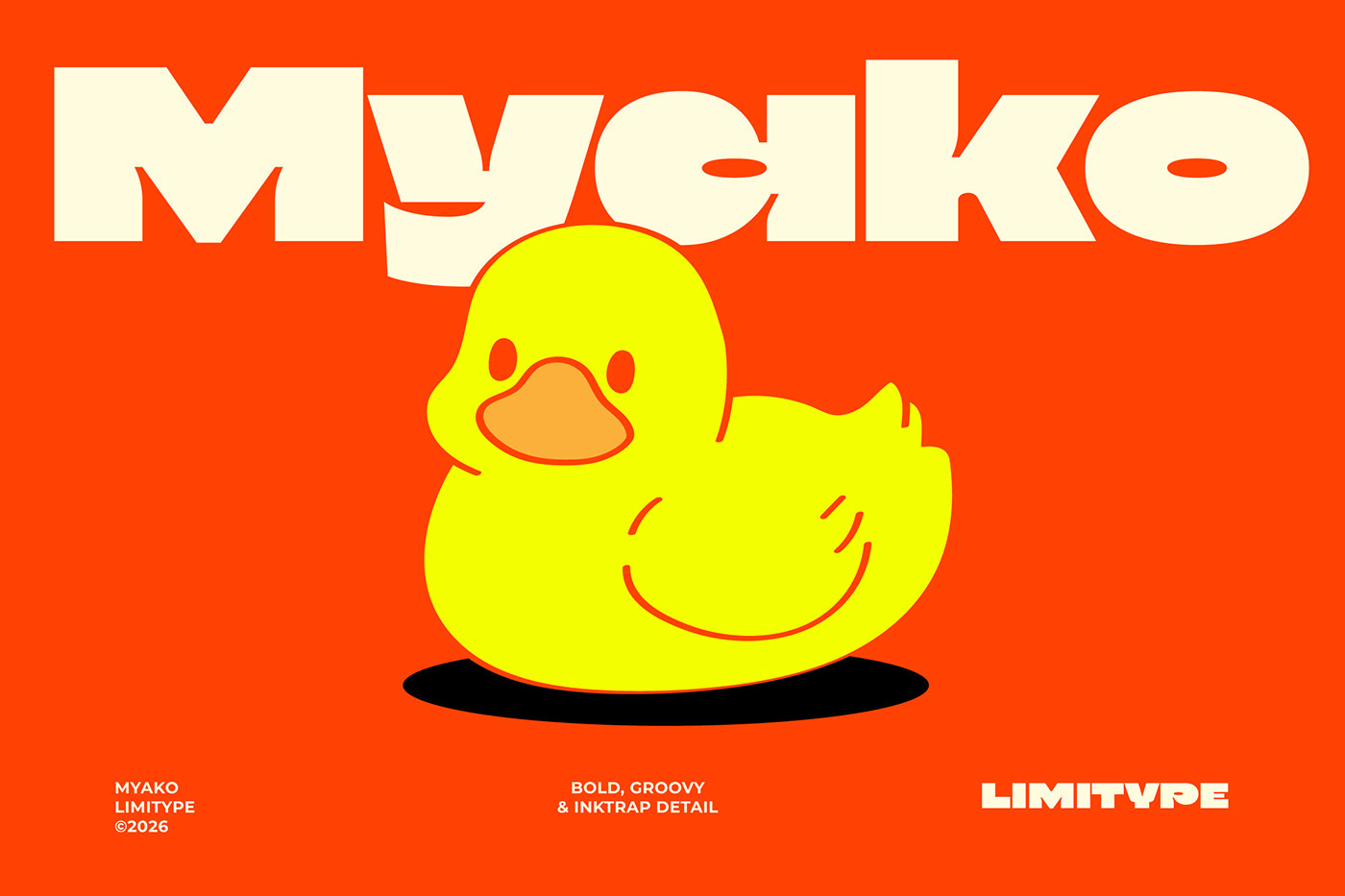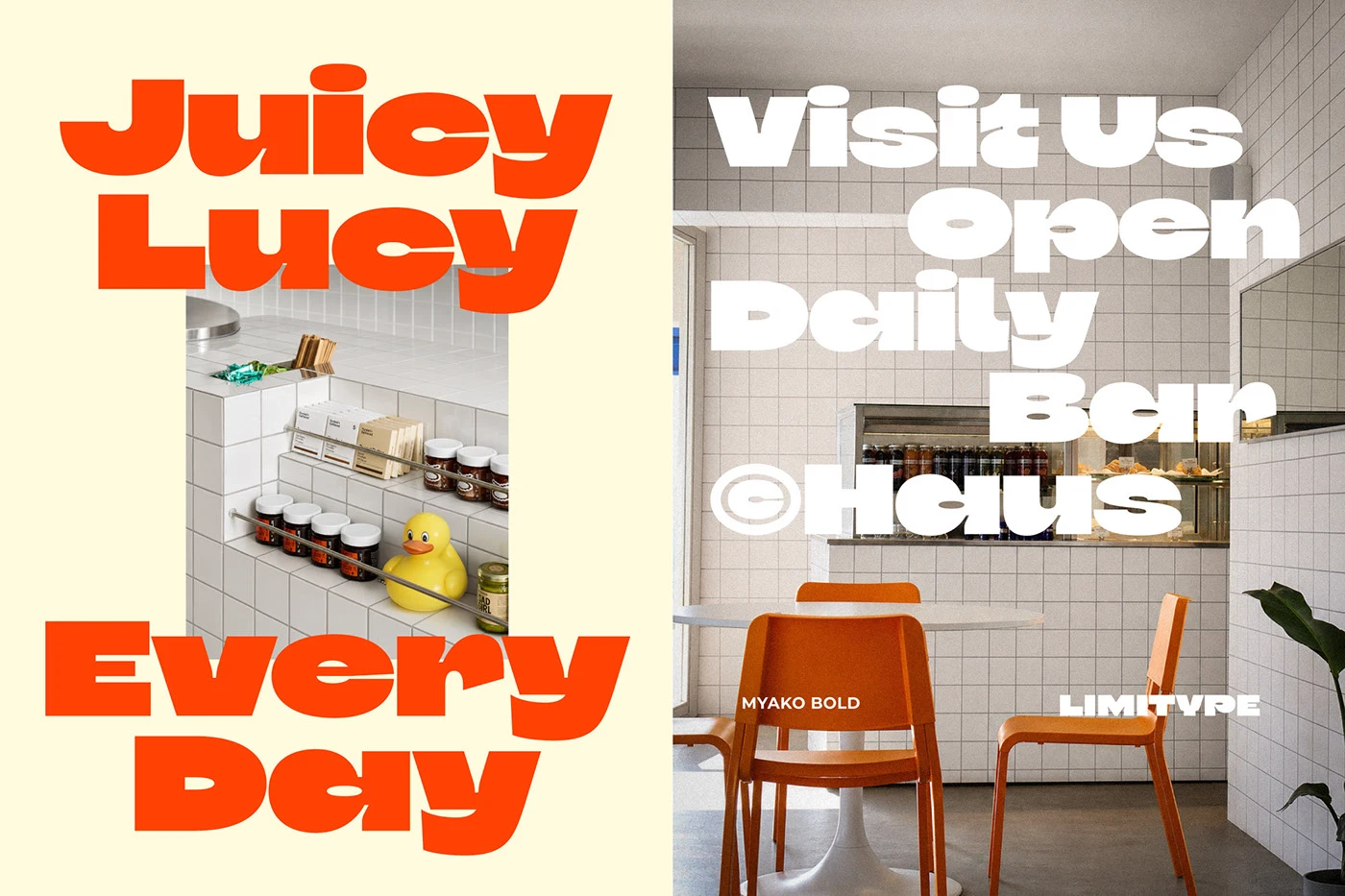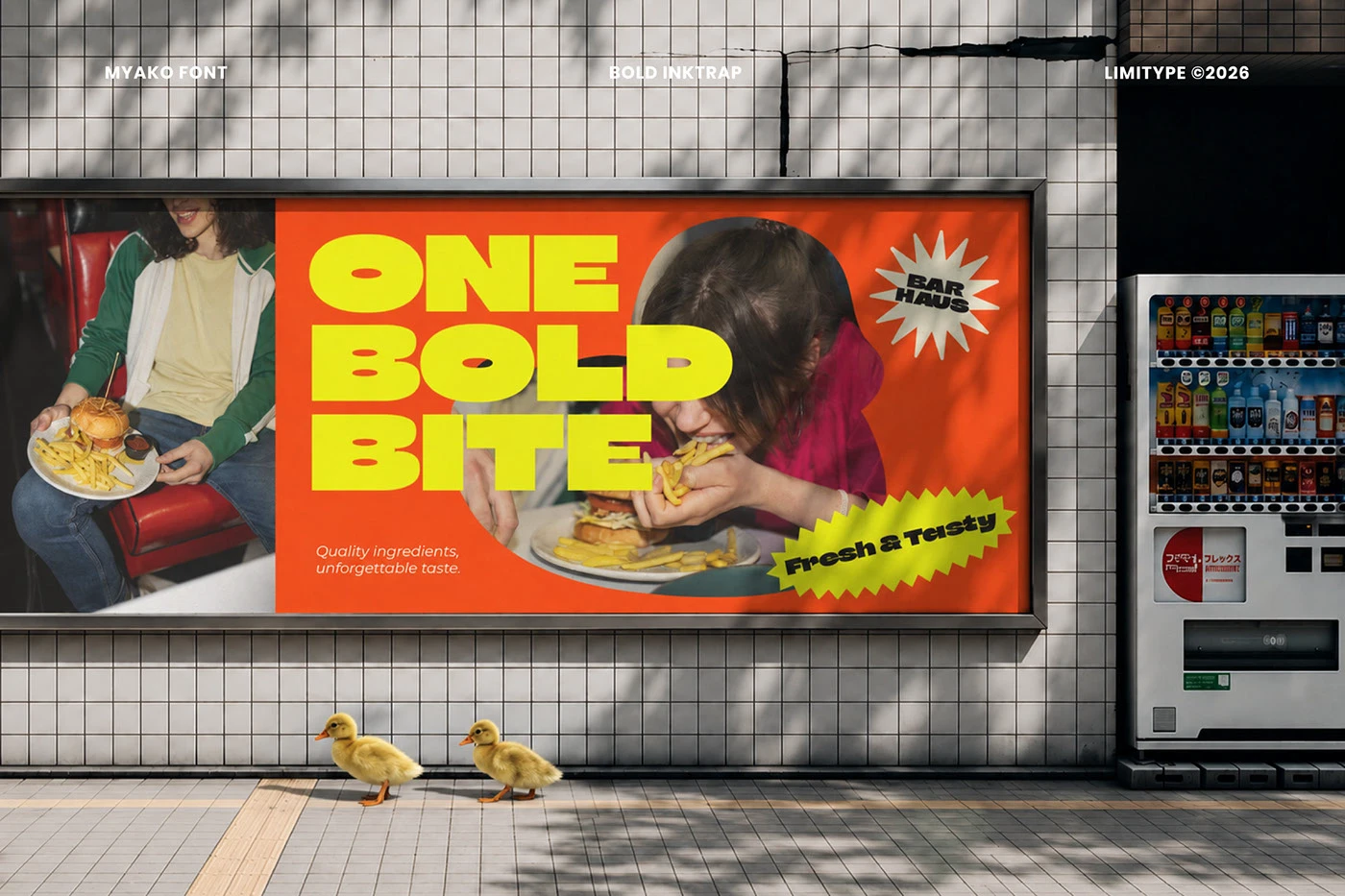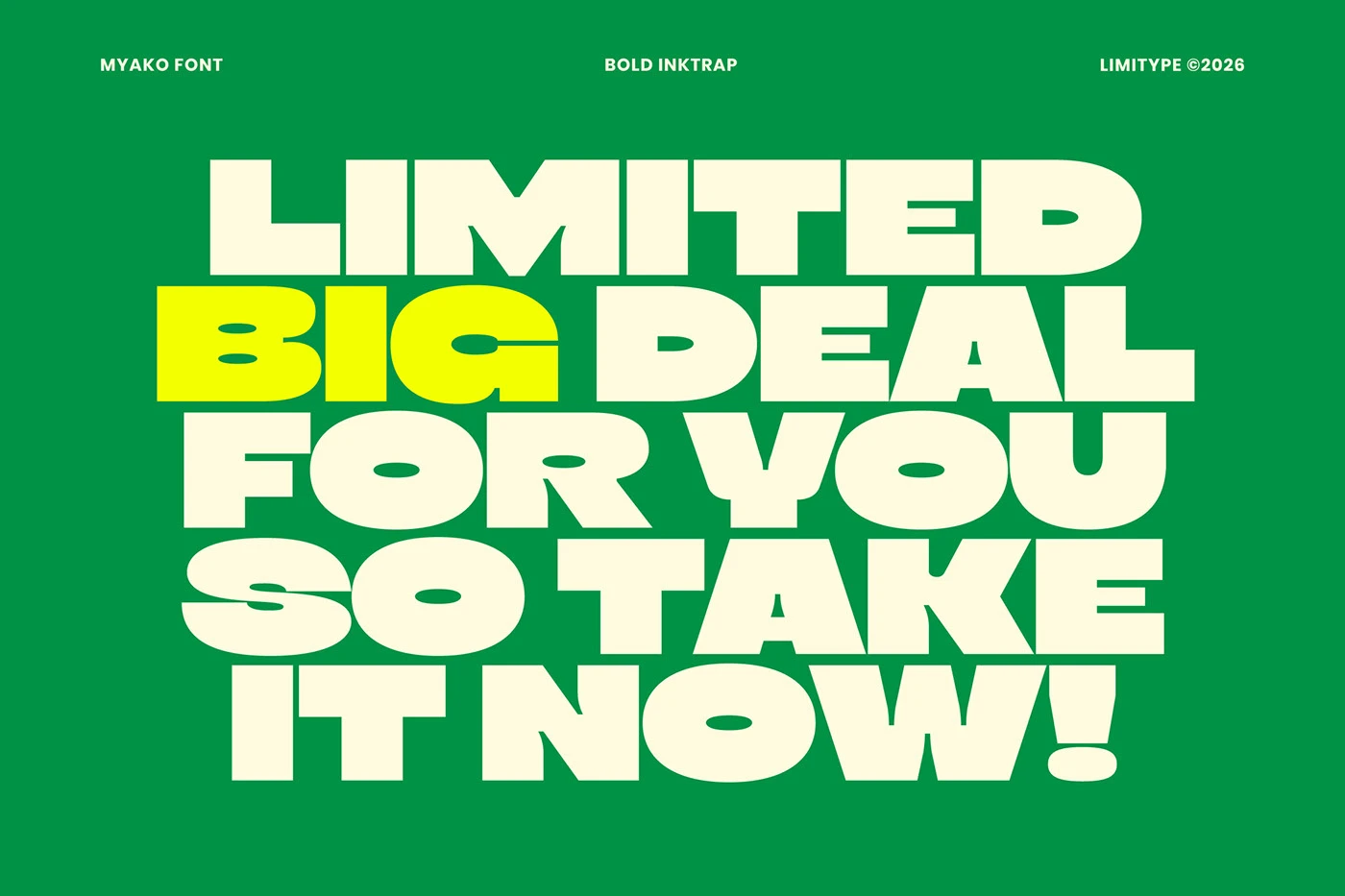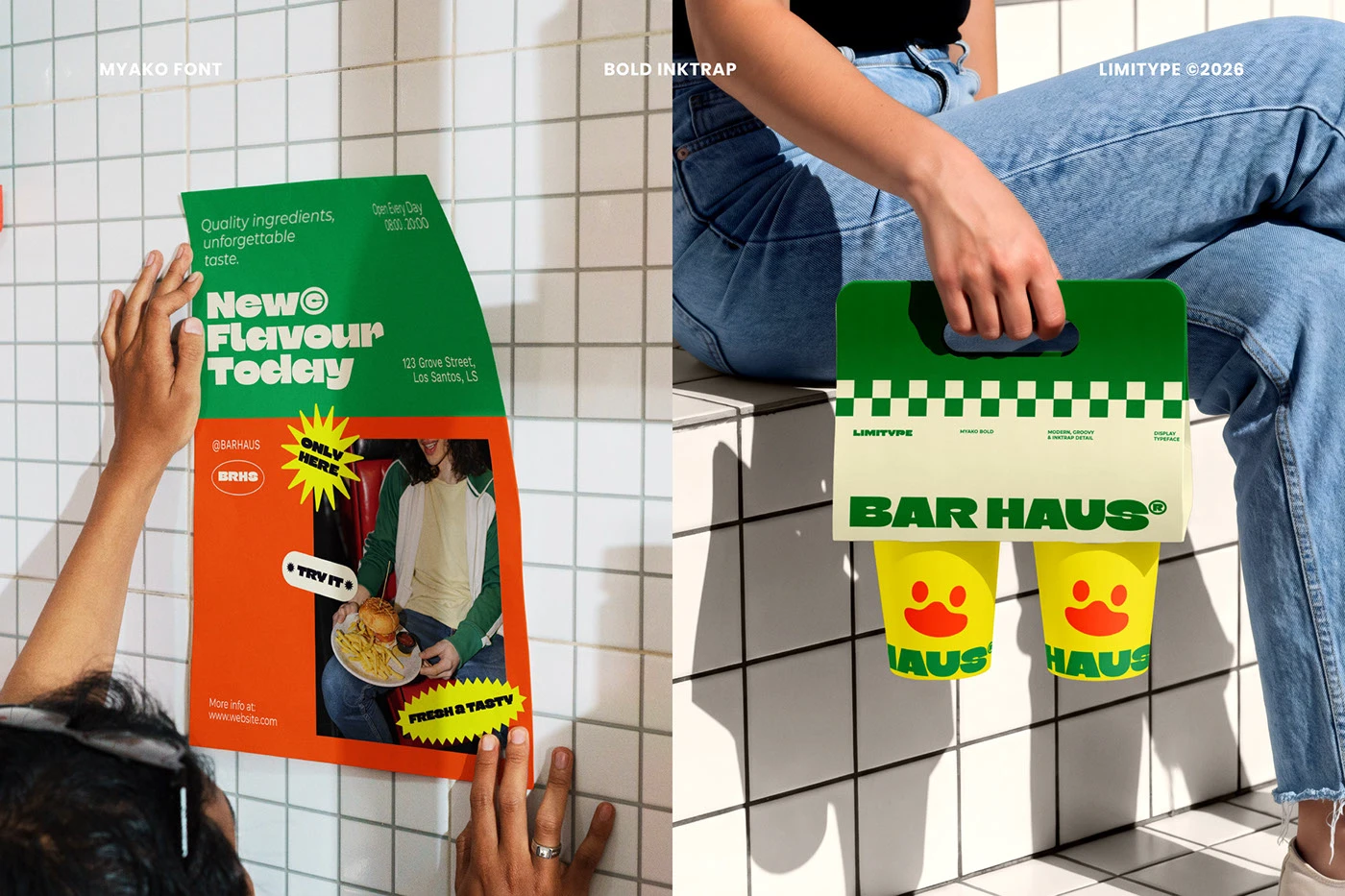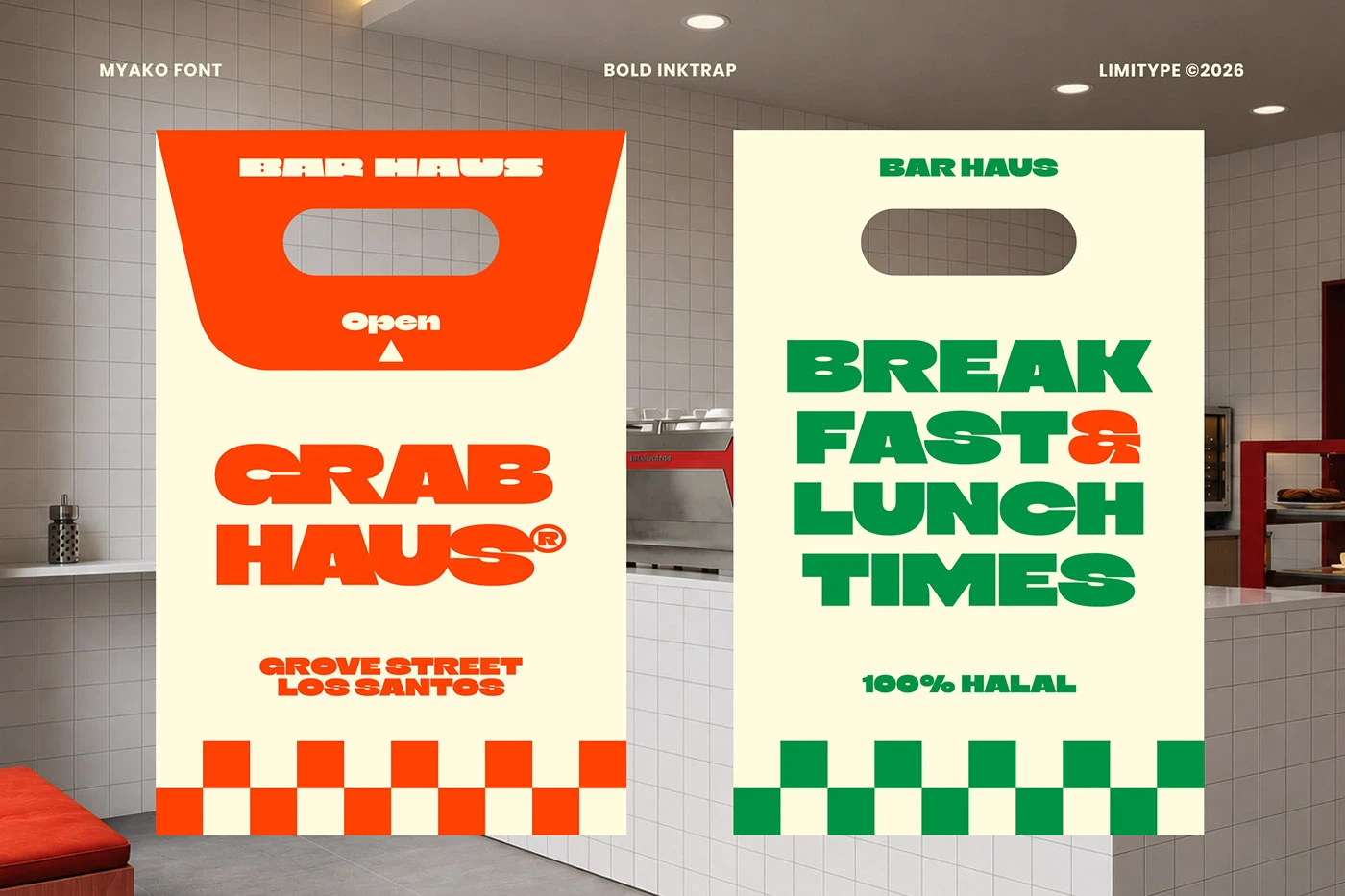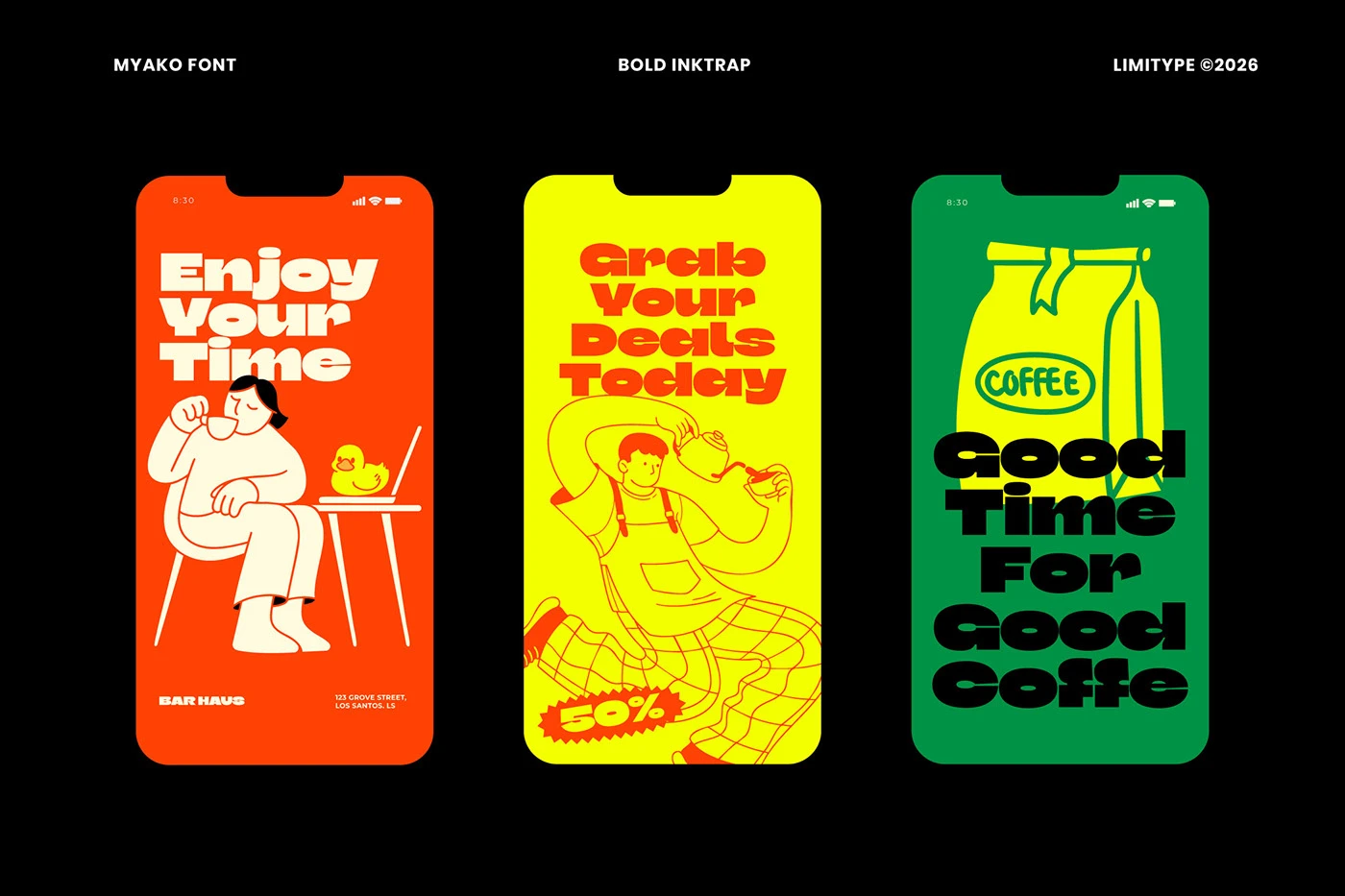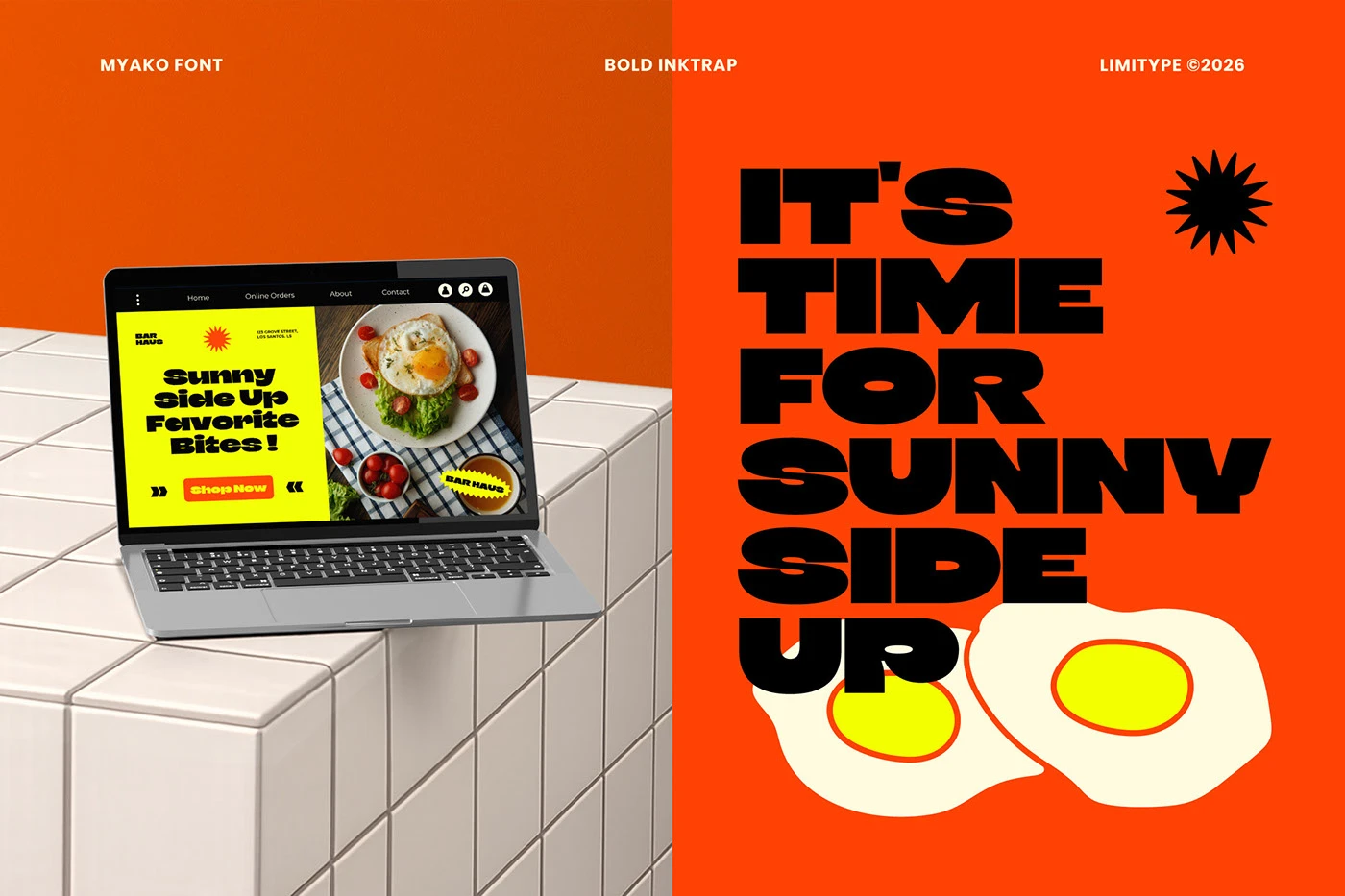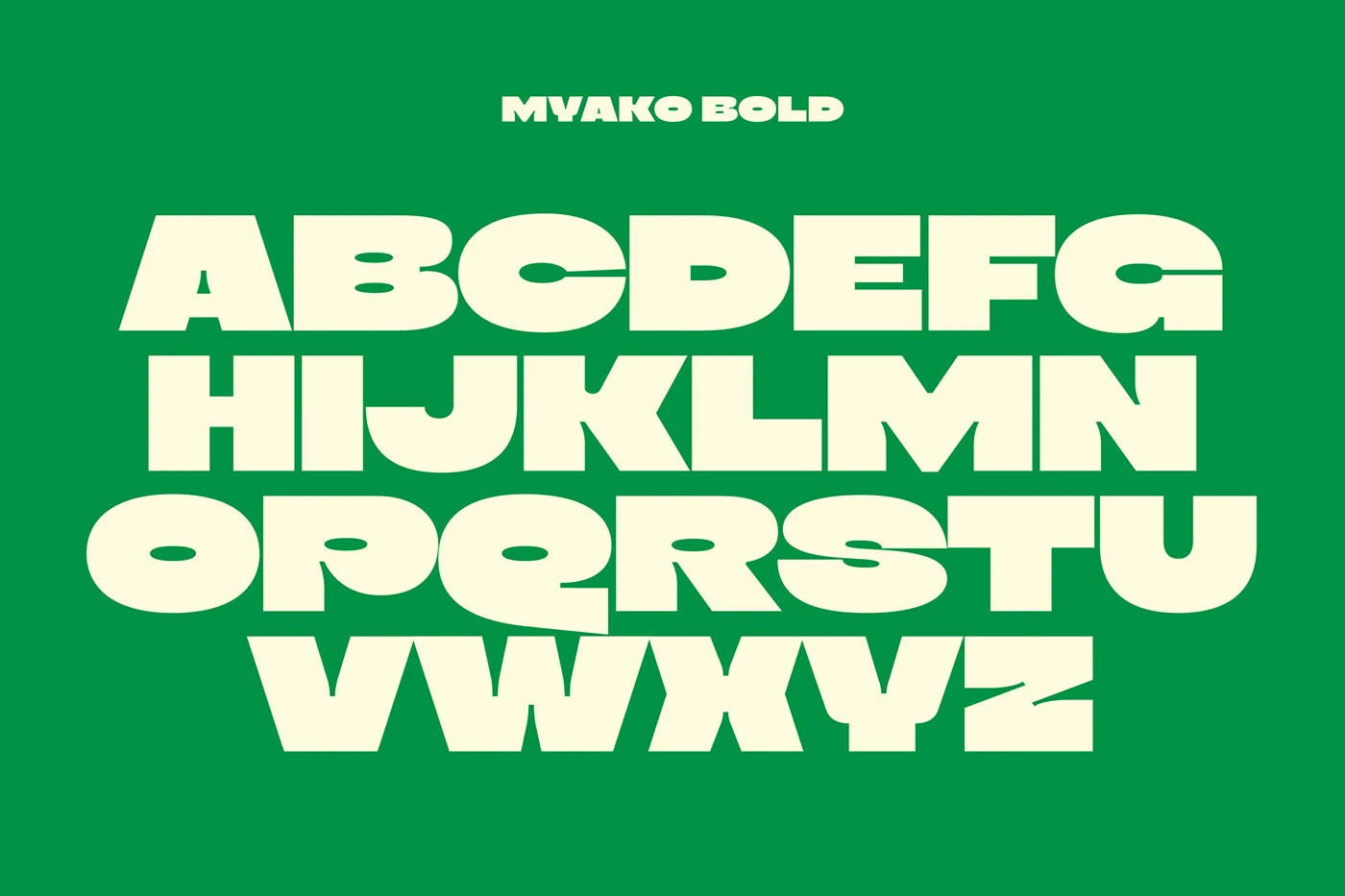
The contemporary design landscape has recently witnessed the introduction of Myako, a distinctive display font engineered by Limitype, poised to redefine expressive typography for modern packaging and digital interfaces. This new typeface skillfully integrates oversized, generous curves with precisely executed deep inktrap cuts, culminating in a design that is both visually arresting and highly functional across diverse applications. The launch of Myako marks a significant moment for designers seeking type solutions that offer both a cheerful aesthetic and robust performance in demanding visual environments, from vibrant product boxes to expansive web banners and poster sheets.
The Genesis and Core Design Philosophy of Myako
Limitype’s development of Myako stems from a clear understanding of the evolving demands placed on branding and visual communication in the 21st century. The design brief for Myako appears to have focused on creating a typeface that could instantly convey a sense of warmth, approachability, and contemporary flair, while simultaneously addressing the technical challenges of display typography at varying scales. The result is a font characterized by its substantial weight, thick letter stems, and invitingly soft rounded corners. This combination imbues Myako with a unique personality, evoking a warm, retro sensibility that resonates with current design trends, yet is executed with a modern crispness.
The intentional use of tight counter spaces within the letterforms contributes significantly to this retro appeal. These compressed interior areas, often associated with mid-20th-century display typography, enhance the font’s impact and visual density, making it particularly effective for headlines and short bursts of text where immediate recognition and memorability are paramount. The high visual contrast inherent in Myako’s design ensures that every headline remains clean, legible, and impactful, even when set against complex backgrounds or integrated into colorful food packaging items. This commitment to clarity underpins Myako’s utility as a versatile tool for brand storytelling.
The Technical Brilliance of Deep Inktrap Cuts
One of Myako’s most distinguishing and technically sophisticated features is its incorporation of deep inktrap cuts. These subtle yet critical notches are strategically carved into key join points of the letterforms, a design element with a rich history in the printing industry. Historically, inktraps were devised to counteract ink spread or "bleed" on physical paper stock during letterpress and early offset printing processes. By creating small, unprinted areas where ink would naturally accumulate and spread, type designers could ensure that the printed corners and joins of characters remained sharp and did not appear blurred or "filled in."
In the digital age, where ink bleed is less of a literal concern for many applications, inktraps have evolved into an aesthetic and functional choice. For Myako, these deep cuts serve multiple purposes. Firstly, they preserve the crispness of letterforms, ensuring that characters maintain their defined edges even when scaled to very large sizes, such as on billboards or large format posters. This precision is vital for maintaining the professional appearance of a brand. Secondly, these cuts add a distinctive visual texture and modern edge to the typeface, preventing the oversized curves from appearing overly soft or undifferentiated. They introduce a subtle tension between the smooth, generous curves and the sharp, architectural incisions, contributing significantly to Myako’s unique character and visual intrigue. This thoughtful reinterpretation of a historical printing solution demonstrates Limitype’s dedication to both aesthetic refinement and practical application.
Myako in Action: Versatility Across Modern Applications
The true test of a display font lies in its performance across a spectrum of real-world applications. Myako excels in this regard, demonstrating a robust typography system capable of adapting seamlessly to various scales and mediums. Sample pages and mockups provided by Limitype showcase its efficacy across numerous touchpoints:
- Large Poster Prints: For bold headlines on posters, Myako commands attention. The thick letter stems and substantial weight ensure high visibility from a distance, while the deep notch cuts prevent any perceived ink bleed, keeping letter joins sharp and clean. The ability to pair these bold headlines with shorter, complementary subtext lines highlights its flexibility within a hierarchical text structure.
- Product Packaging: This is arguably Myako’s primary intended domain. Packaging mockups for items such as drink cans and snack boxes vividly illustrate how the bold typography establishes a strong store shelf presence. In a crowded retail environment, where products compete for fleeting consumer attention, Myako’s distinct visual identity helps brands stand out. The font’s inherent warmth and retro feel can evoke a sense of familiarity and comfort, while its modern crispness ensures relevance.
- Web Banners and Digital Interfaces: In the digital realm, Myako’s high visual contrast ensures readability and impact across various screen resolutions. Its strong shapes translate well to online advertisements, social media graphics, and website headlines, maintaining brand consistency across both physical and digital channels.
- Brand Assets and Identity: Beyond specific applications, Myako is designed as a foundational tool for building memorable brand assets. Its unique character allows brands to forge a distinct visual identity that communicates cheerfulness, authenticity, and a touch of nostalgic charm, all while maintaining a contemporary edge.
The comprehensive character set, including full numbers, punctuation marks, and multi-language glyphs, further enhances Myako’s utility for global brands. This broad support ensures that the font can be implemented across diverse linguistic contexts without compromising its design integrity or expressive power.
The Strategic Role of Typography in Brand Building
Myako’s launch serves as a timely reminder that typography remains a cornerstone of effective visual communication. It is not merely about choosing a font; it is about selecting a voice, setting a tone, and crafting an experience. With its unique blend of retro warmth and crisp modern shapes, Myako offers creators a fresh, bold tool for graphic work, capable of elevating brand identities and engaging audiences in memorable ways. The clean layout rules and inherent visual order guided by its design principles ensure that Myako will be a valuable asset for designers navigating the complexities of modern brand work, from poster banners to intricate packaging covers. Designers are encouraged to explore the complete font specimen on Behance to fully appreciate the depth and versatility of this significant new addition to the world of display typography.